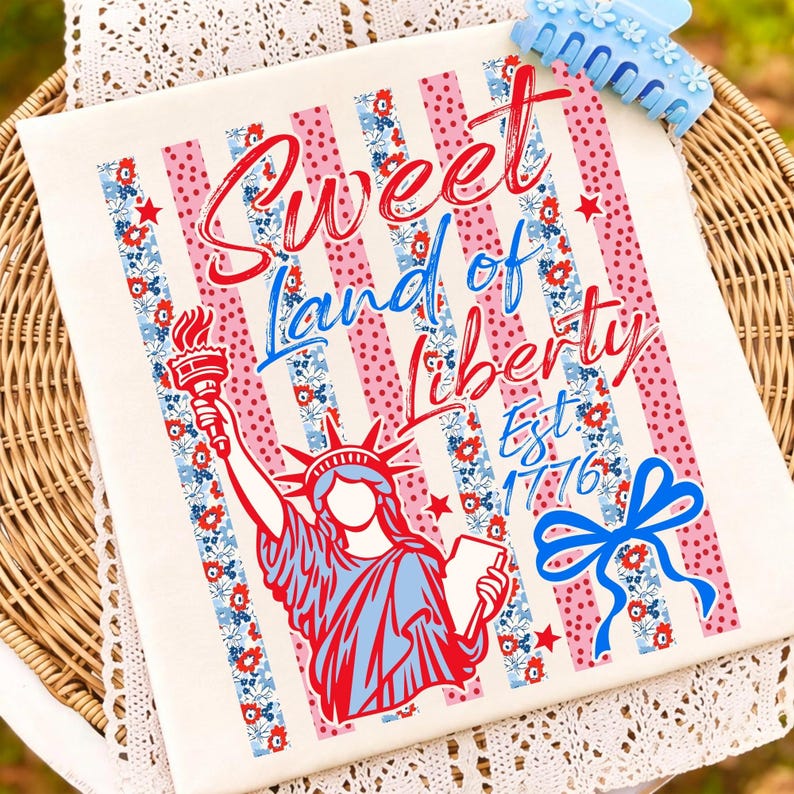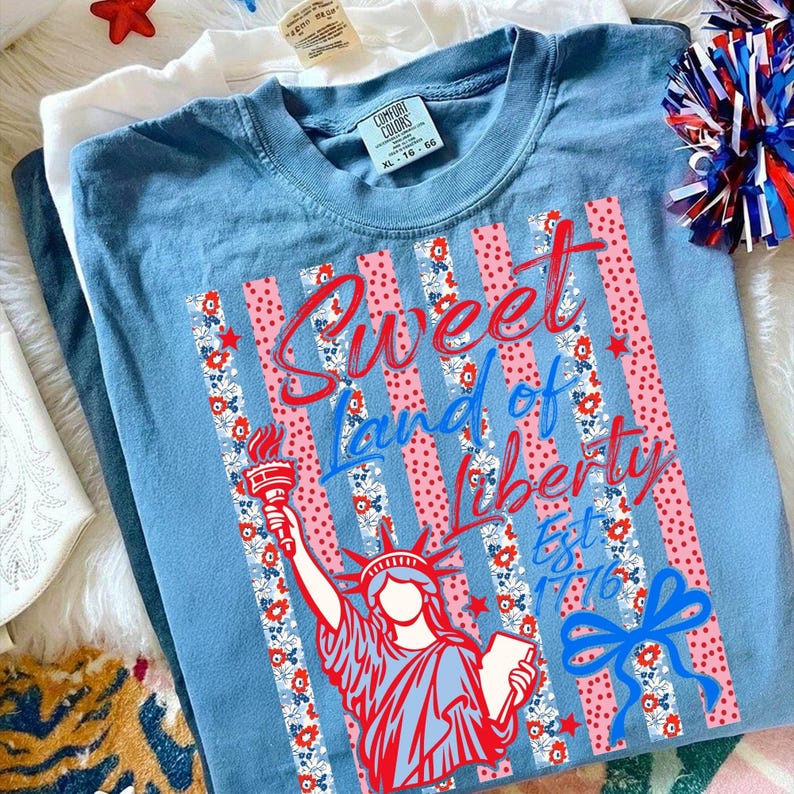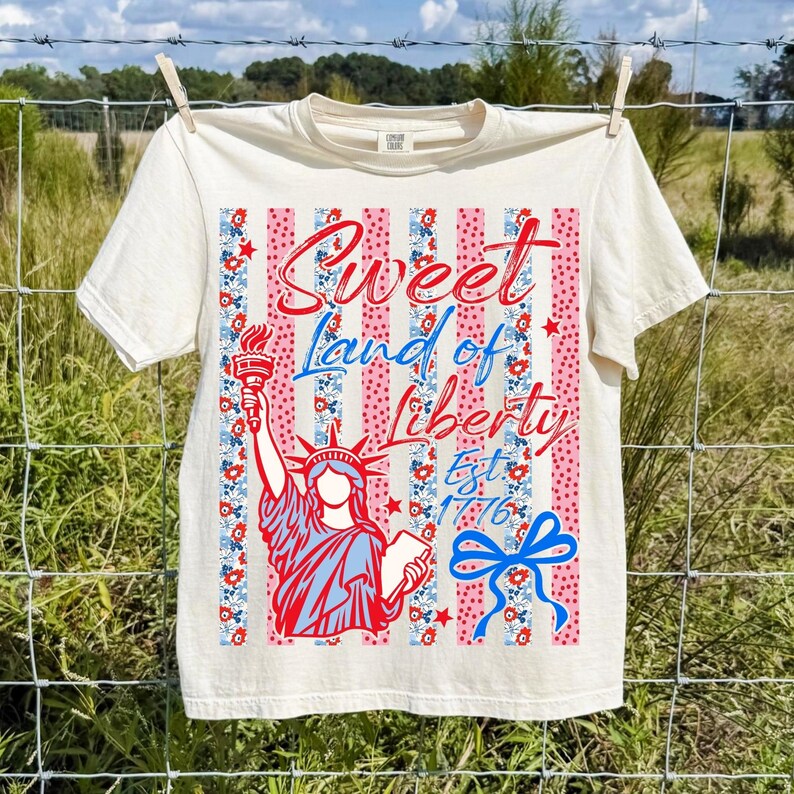
Unleash Your Patriotism: The Ultimate Retro 4th of July PNG Alphabet for Crafters
As the fireworks illuminate the summer sky and the scent of barbecue fills the air, the Fourth of July ignites a special kind of creative spark. For crafters, designers, and small business owners, this patriotic holiday is a prime opportunity to create stunning, themed merchandise and decor. If you’re looking to infuse your projects with a timeless, vintage American charm, look no further than the Sweet Land of Liberty PNG Alphabet. This energetic, retro-inspired collection of Fourth of July letters is the perfect digital asset to make your Independence Day creations truly stand out.
Imagine crafting custom t-shirts, vibrant sublimation tumblers, or personalized picnic decor that perfectly captures the spirit of freedom and nostalgia. This isn’t just any font; it’s a meticulously designed American Flag Patriotic Stripes Font PNG that brings a unique blend of historical reverence and playful retro aesthetics to every project. Get ready to rev up your sublimation and DTF projects with a design that promises to be a popular choice for all your festive apparel and home goods.
Embrace Vintage Charm: Design Features That Dazzle
The magic of the Sweet Land of Liberty PNG Alphabet lies in its exceptional design features, carefully crafted to deliver a professional and eye-catching finish. Each letter and number in this set boasts Retro Red White and Blue Stripes*, reminiscent of classic Americana. But it’s not just about the colors; a **High-Quality Distressed Texture** adds an authentic, vintage feel, giving your designs character and depth that mass-produced items often lack. This attention to detail ensures a *Classic American Flag Aesthetic that resonates with Independence Day celebrations and vintage patriotic enthusiasts alike.
Crafting Freedom: Endless Possibilities for Every Patriot
The versatility of the Sweet Land of Liberty PNG Alphabet makes it an essential tool for a wide array of creative endeavors. If you’re passionate about Custom 4th of July T-shirts*, these retro letters will transform ordinary apparel into wearable statements of patriotism. For those who love creating *Festive Sublimation Tumblers, the vibrant stripes and distressed texture will pop, making every sip a celebration.
Beyond apparel, imagine enhancing your summer gatherings with Personalized Picnic Decor* or crafting unique **Patriotic Party Invitations** that set the perfect tone for your Independence Day bash. This PNG alphabet is also ideal for **DTF Transfer Designs** and a myriad of *DIY Independence Day Crafts, from banners to scrapbooking elements. Whether you’re a seasoned crafter or just starting your creative journey, this digital asset empowers you to create vibrant shirts, hoodies, mugs, and decor that proudly celebrates the “Sweet Land of Liberty.”